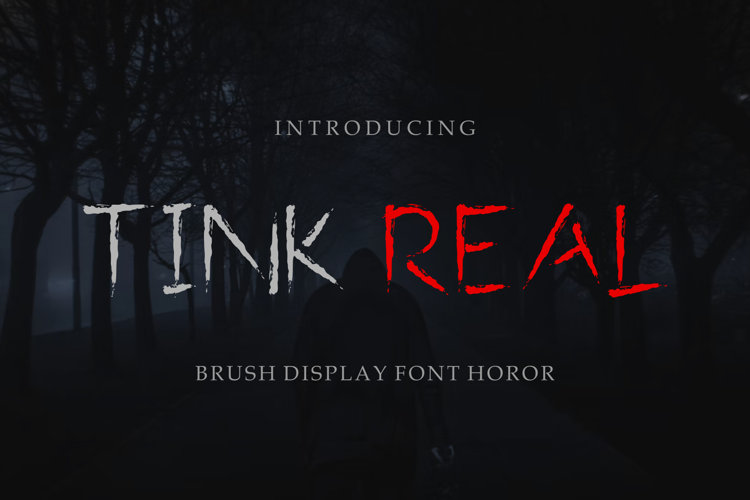
Think Real Font
TINK REAL is a haunting handwritten horror font crafted to bring a raw, eerie, and unsettling atmosphere to your creative projects. Featuring rough brush strokes, distressed textures, and irregular letterforms, this font captures the feeling of scratched markings, abandoned places, and psychological thrillers.
Perfect for horror movie titles, Halloween designs, spooky event posters, book covers, game graphics, YouTube thumbnails, branding, album artwork, and dark-themed merchandise, TINK REAL delivers an authentic handcrafted look that instantly grabs attention.
Whether you're creating a chilling cinematic poster or a mysterious logo, this font adds an unforgettable creepy character while remaining readable and versatile.
Handcrafted Horror Style
Bring fear, mystery, and suspense into your typography with TINK REAL—the perfect font for projects that demand a bold, dark, and unforgettable visual identity.